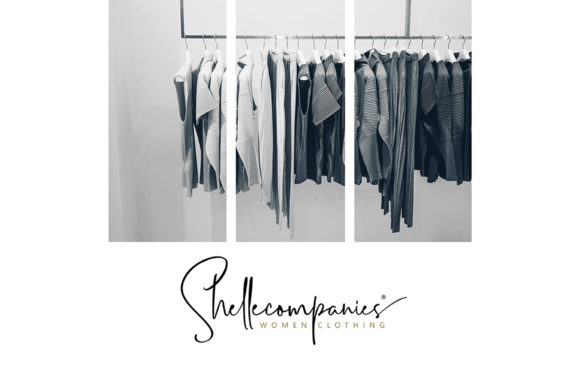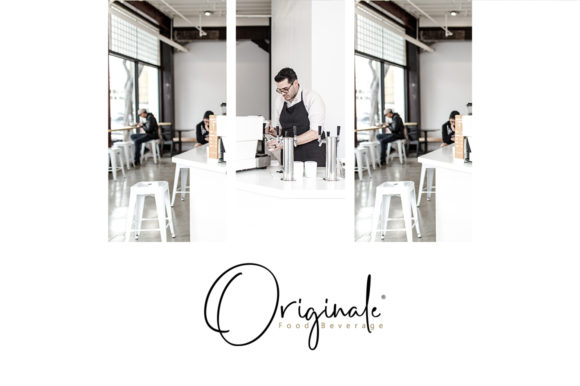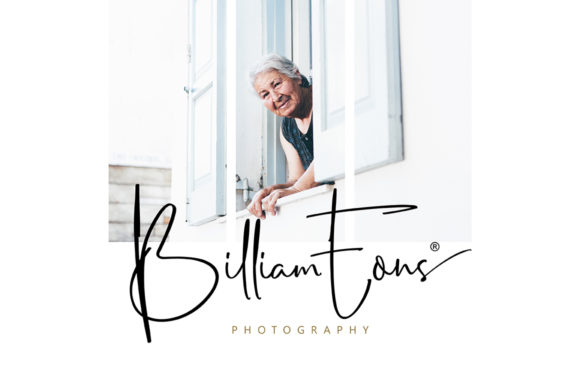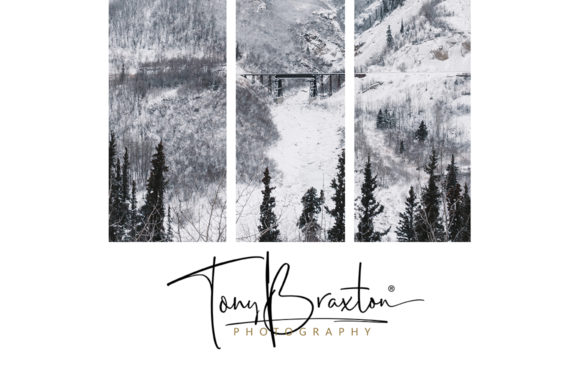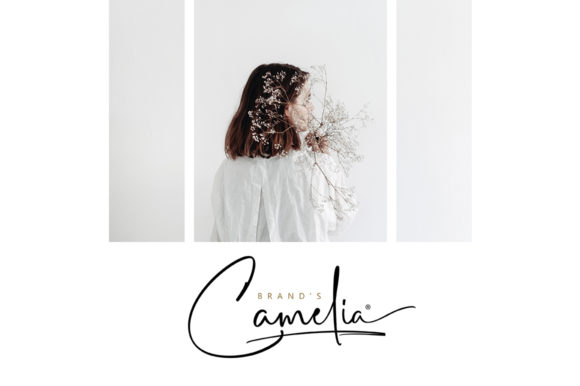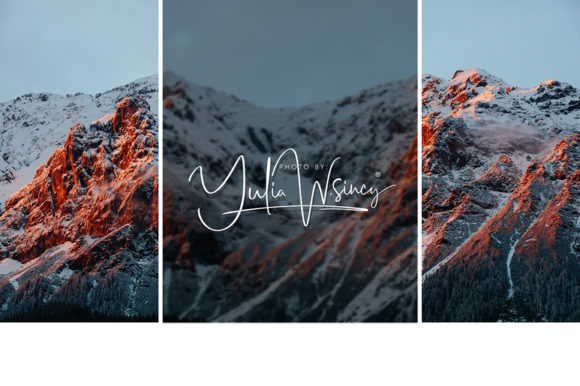
Introducing the Alessa Beilaire Font: A Timeless Script for Elegant Designs
The Alessa Beilaire font is a stunning script font that embodies simplicity and class. With its three elegant styles and exceptional readability, it’s an ideal choice for designers and crafters looking to add a touch of sophistication to their projects. In this article, we’ll dive into the world of Alessa Beilaire, exploring its features, uses, and benefits.
A Font for Versatility
The Alessa Beilaire font is a versatile typeface that can be used in a wide range of design applications. Its elegant and flowing script makes it perfect for:
- Watermarks on photography: Add a touch of class to your photos with a subtle yet sophisticated watermark.
- Signature or signature logo designs: Create a lasting impression with a beautiful, custom signature font.
- Quotes and typography: Use Alessa Beilaire to add a touch of elegance to your quotes, posters, and typographic designs.
- Album covers: Give your music albums a professional and polished look with this stunning script font.
- Business cards: Stand out from the crowd with a beautifully designed business card featuring the Alessa Beilaire font.
Three Elegant Styles to Choose From
The Alessa Beilaire font comes in three distinct styles, each with its own unique character. Whether you’re looking for a classic and traditional look or something more modern and bold, Alessa Beilaire has got you covered. The three styles include:
- Style 1: A classic and elegant script perfect for formal designs and traditional applications.
- Style 2: A modern and sleek script with a slightly bolder look, ideal for contemporary designs and branding.
- Style 3: A beautiful and intricate script with ornate details, perfect for decorative designs and artistic projects.
Readability and Legibility
One of the standout features of the Alessa Beilaire font is its exceptional readability and legibility. The font’s flowing script and carefully crafted letterforms ensure that your text is easy to read, even at smaller sizes. This makes it perfect for designs where text needs to be clear and concise, such as business cards, brochures, and posters.
The Alessa Beilaire font offers a range of benefits for designers and crafters, including:
- Customization: With three elegant styles to choose from, you can customize your designs to suit your needs.
- Time-saving: The font’s exceptional readability and legibility save you time and effort in designing and editing your projects.
- Professional look: The Alessa Beilaire font gives your designs a professional and polished look, perfect for clients and personal projects.
Tips and Tricks for Using Alessa Beilaire
To get the most out of the Alessa Beilaire font, here are some tips and tricks to keep in mind:
- Experiment with sizes: Play around with different font sizes to find the perfect balance for your design.
- Mix and match: Combine Alessa Beilaire with other fonts to create a unique and visually appealing design.
- Pay attention to spacing: Adjust the spacing between letters and words to ensure your text flows smoothly.
- Add a personal touch: Use Alessa Beilaire to add a personal touch to your designs, such as a custom signature or watermark.
The Alessa Beilaire font is a stunning script font that offers elegance, versatility, and exceptional readability. With its three elegant styles and wide range of applications, it’s an ideal choice for designers and crafters looking to add a touch of sophistication to their projects. Whether you’re working on a professional design or a personal craft project, Alessa Beilaire is sure to impress.